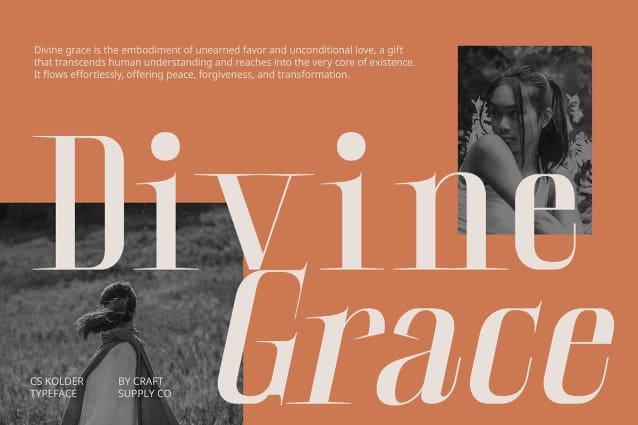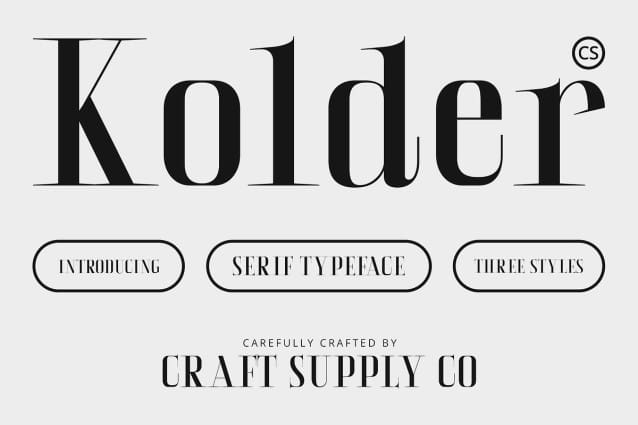
CS Kolder Font
CS Kolder Font is a modern serif font that exudes sophistication with its clean lines and balanced proportions. Each character is meticulously crafted to create a harmonious and professional appearance, making it a perfect choice for designs that demand a touch of elegance.
Luxurious Feel with Exceptional Readability Featuring slender characters adorned with fine details on the feet and serifs, CS Kolder combines luxury with functionality. Its refined design ensures readability, making it suitable for a wide range of applications, from branding and invitations to editorial and marketing materials. This versatility allows designers to create impactful visuals that resonate with their audience.
Perfect for Diverse Design Applications CS Kolder shines in various contexts, offering a classic touch that remains relevant to contemporary styles. Whether you’re creating formal invitations or modern branding, this font adapts effortlessly, providing the perfect balance of tradition and modernity.
Captivating Attention in Formal and Creative Contexts With its elegant design, CS Kolder is ideal for capturing attention in both formal and creative settings. Its timeless aesthetic lends itself beautifully to projects that require a refined touch, ensuring that your message stands out while maintaining a sense of professionalism.